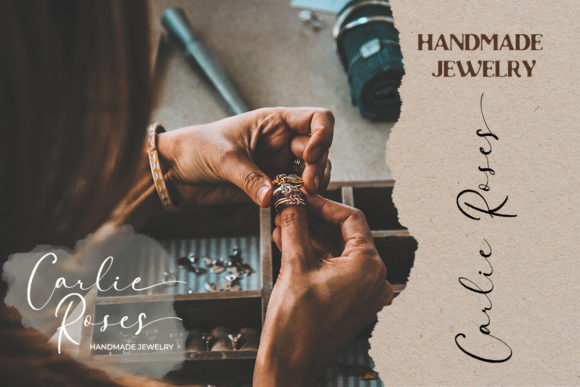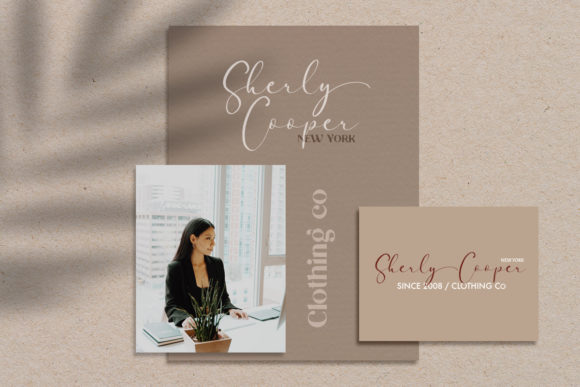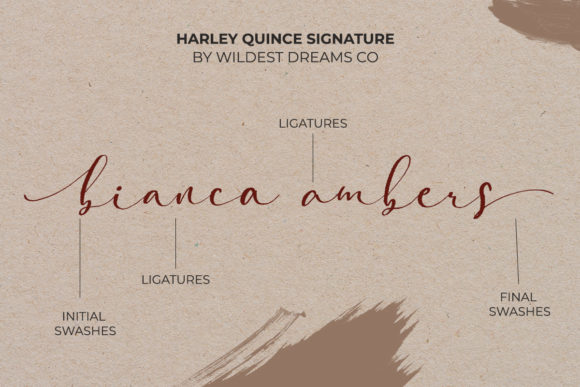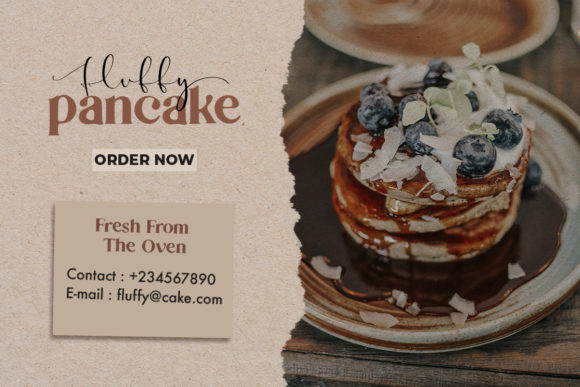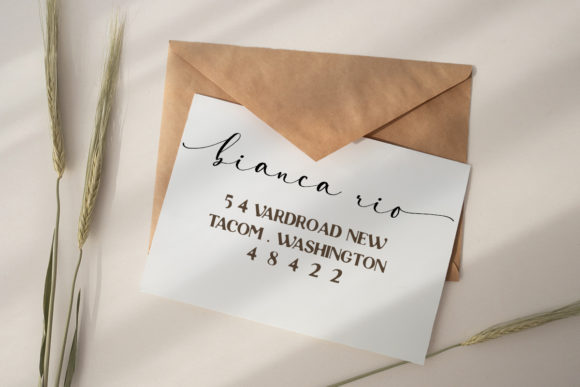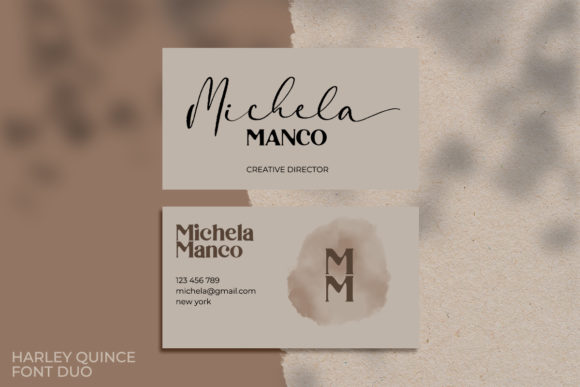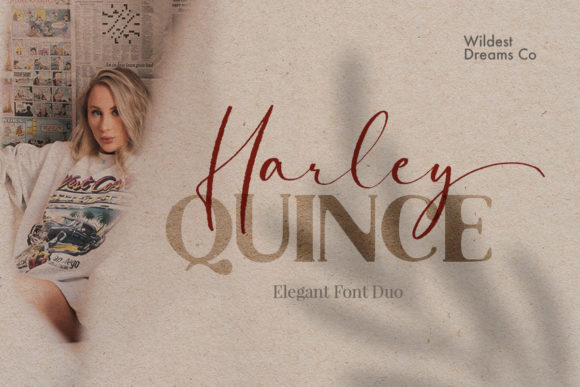
Introducing Harley Quince Font: Elevate Your Designs with Elegance and Sophistication
Are you a designer or crafter looking for a font that exudes modern elegance and sophistication? Look no further than the Harley Quince Font, a stunning duo font that combines the best of both worlds – classic and rustic elements. This signature font is sure to elevate your designs and take them to the next level.
What is Harley Quince Font?
Harley Quince Font is a modern and elegant duo font that consists of two complementary fonts – a beautiful script font and a classic serif font. This versatile font duo is perfect for a wide range of design projects, from branding and advertising to packaging and stationery.
Key Features of Harley Quince Font
• Modern and Elegant Design: Harley Quince Font boasts a sleek and sophisticated design that is sure to impress. The script font features flowing lines and delicate curves, while the serif font has a classic and timeless look.
• Signature Font: Harley Quince Font is a unique and distinctive font that will help your designs stand out from the crowd. Its signature style makes it perfect for logos, branding, and other high-end design projects.
• Classic and Rustic Elements: This font duo combines classic and rustic elements to create a truly unique look. The script font has a touch of elegance, while the serif font has a hint of rustic charm.
• Versatile and Flexible: Harley Quince Font is incredibly versatile and can be used for a wide range of design projects, from digital designs to print materials.
Why Choose Harley Quince Font?
So why choose Harley Quince Font for your design projects? Here are just a few reasons:
• Elegance and Sophistication: Harley Quince Font exudes elegance and sophistication, making it perfect for high-end design projects.
• Unique and Distinctive: This font duo is truly one-of-a-kind, ensuring that your designs will stand out from the crowd.
• Easy to Read: Both the script and serif fonts are easy to read, making them perfect for body text and headlines.
• High-Quality Design: Harley Quince Font is designed to the highest standards, ensuring that your designs look professional and polished.
How to Use Harley Quince Font
Harley Quince Font is incredibly easy to use and can be incorporated into your designs in a variety of ways:
• Branding and Advertising: Use Harley Quince Font to create stunning logos, advertisements, and marketing materials.
• Packaging and Stationery: Add a touch of elegance to your packaging and stationery with this beautiful font duo.
• Digital Designs: Use Harley Quince Font to create stunning digital designs, including social media graphics, website headers, and more.
In conclusion, Harley Quince Font is a modern and elegant duo font that is sure to elevate your designs. With its unique combination of classic and rustic elements, this signature font is perfect for designers and crafters looking to add a touch of sophistication to their work. Whether you’re working on a branding project, packaging design, or digital design, Harley Quince Font is the perfect choice.